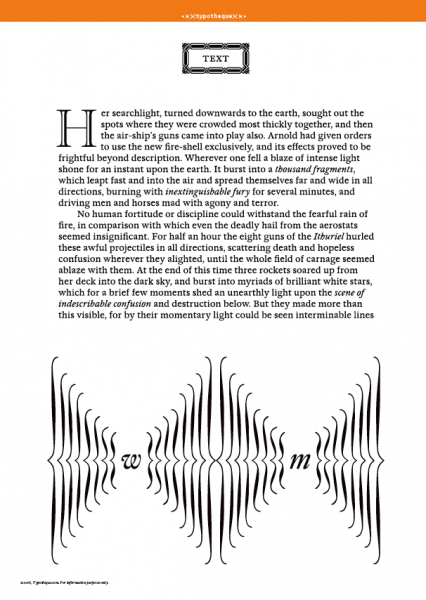
7 Excellent New Typefaces
For the latest issue of Print, Jason Tselentis brought together a cadre of experts to find out what they believe are the best new typefaces of 2016. The chosen faces—which you can find in the Fall 2016 issue of Print—include Hoefler & Co.’s Operator, Grilli Type’s GT Eesti, Commercial Type’s Action Condensed, and eight others. Here, as an online exclusive to the issue, Tselentis presents seven honorable mentions.
The Typefaces
Bely
Foundry: TypeTogether Designer: Roxane Gataud Released: January Many experts gave Bely high marks, including Amy Papaelias, who wrote, “My favorite thing about Bely is, of course, the extreme display weight. It exudes an air of confidence, whimsy and sophistication that says, ‘IDGAF,’ although probably in French.”
Fabrikat
Foundry: HvD Fonts Designer: Christoph Koeberlin, with the creative input of Hannes von Döhren Released: February Fabrikat might look like DIN, but experts noticed subtle differences that meant a lot. Mitch Goldstein saw it as “a rounder, friendlier, more approachable DIN,” and appreciated “the simple geometry and consistent strokes,” giving it “a calming, quiet quality that works especially well in the heavier weights.”
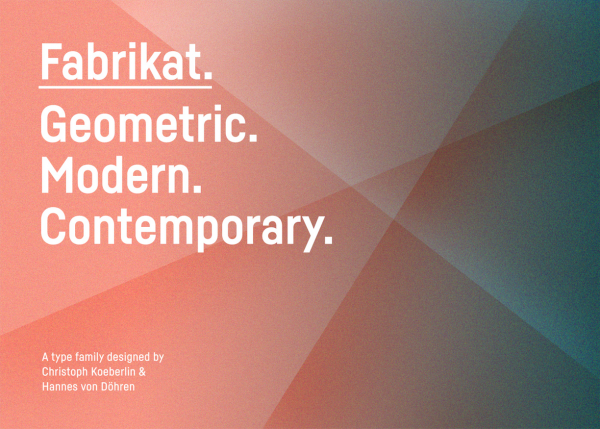
Le Jeune
Foundry: Commercial Type Designers: Paul Barnes & Christian Schwartz, with Stencil by Greg Gazdowicz Released: June For Doug Bartow, Le Jeune was love at first sight. “I could spend hours just looking through the alternate characters and beautiful stencil weights.” Others were won over by its features, such as the small caps, as well as its overall utility.
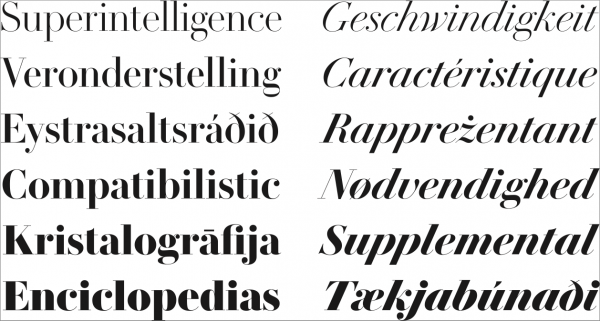
Nordvest
Foundry: Monokrom Designer: Nina Stössinger Released: September Nordvest challenges formal conventions by making verticals lighter than horizontals. Quirky? Perhaps, but it is unique and the end result is still functional, according to Amy Papaelias, who saw it as “refined enough to withstand a variety of text or display contexts.” Available in eight styles (four weights), designer Nina Stössinger wrote that the regular weights work well in running text while heavy weights are quite expressive.
Questa Slab
Foundry: The Questa Project Designers: Martin Majoor and Jos Buivenga Released: June Questa Slab rounds out the Questa super font family that also includes Questa, Questa Sans and Questa Grande, comprising four families as of this writing. Questa Slab has its roots in Questa Sans, derived from the original Questa. The massive undertaking is still in development with a swash family and monospaced family coming soon. Jason Alejandro called Questa Slab “a true workhorse and an excellent choice for any designer looking for a suite of matching fonts.”
Trench Slab
Foundry: Indian Type Foundry Designer: Shiva Nallaperumal Released: April Scott Stowell found Trench Slab similar to Bell Centennial and Retina, designed to work in difficult situations at small sizes. “The thing is, we don’t need to deal with those situations that much anymore, but now I want to deal with the shapes that came from them.”
William Text